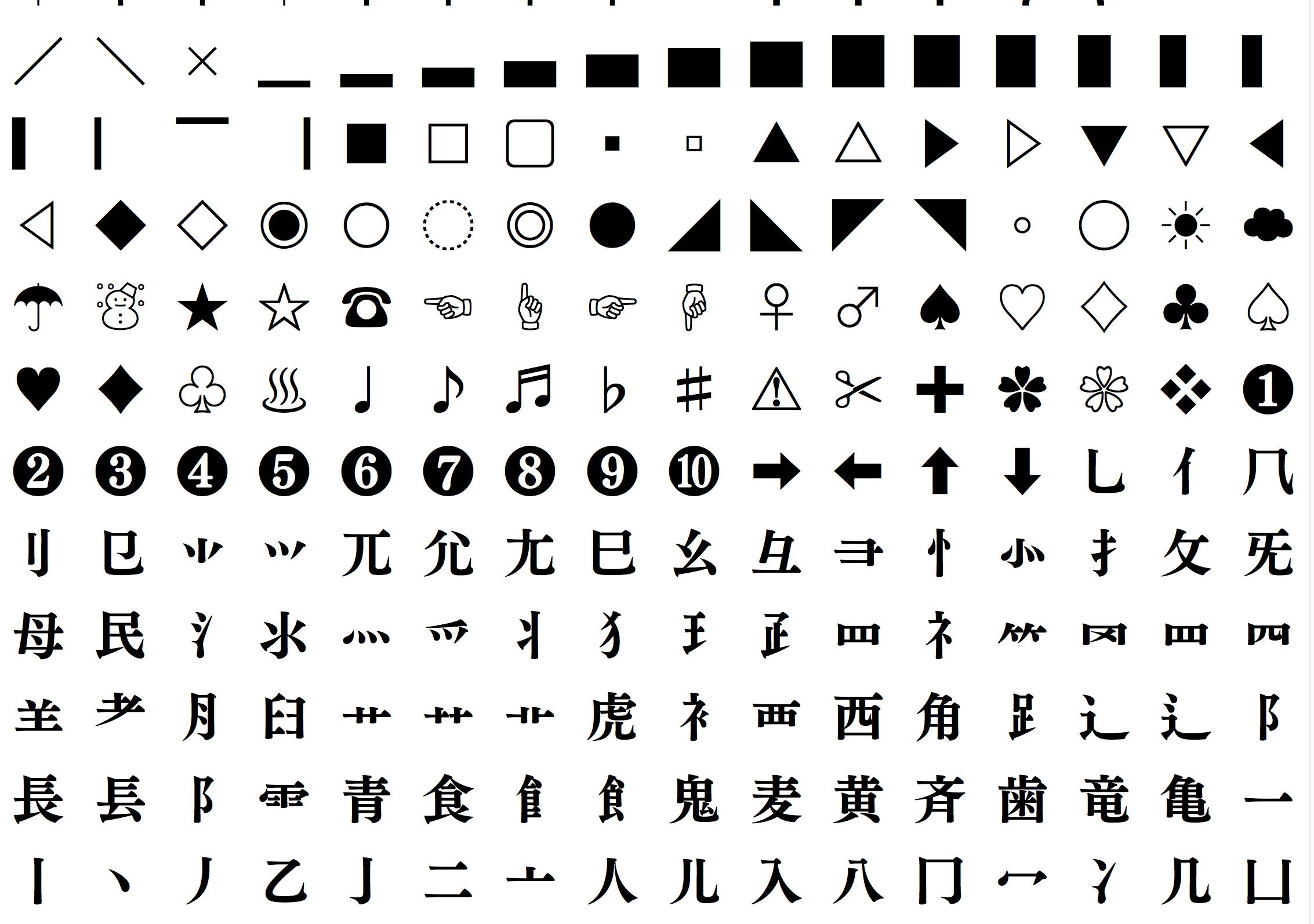
Fontworks Started In 1990 By Neville Brody And Stuart Jensen, Fontworks Is A Highly Regarded Type Consultancy, Solutions Provider And Font Retailer Specializing In Unique Fonts From Over.
High Fiber By Cumberland Fontworks.
Fonts From The Foundry “Fontworks” In Use.